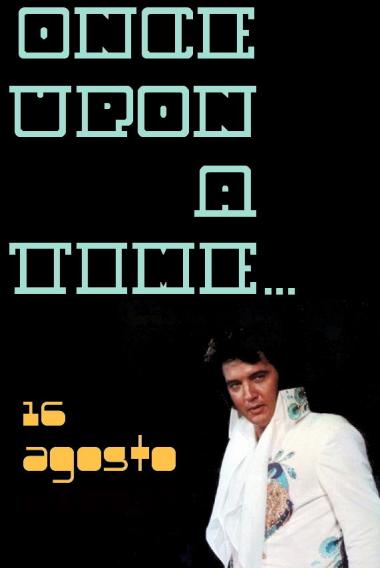
zcell rnd eYe/FS
zcell eYe/FS
This has been in the salon and ... Small changes in "zcell eYe/FS" make this font appear to look... as their older sister. FS is funny!
This has been in the salon and ... Small changes in "zcell eYe/FS" make this font appear to look... as their older sister. FS is funny! You can vote it, but is just only a diverttimento.
Whoa, that's pretty cool. Love the &. 9/10.
I don't know exactly what you changed, but i prefer this one much more than its sister now. Maybe the "T" is a bit too wide, though
I've changed the &, the %, the ©, the G, the Q (a little bit), the 6, the 9... unimportant things, just details. Agree with you, I will work a little the "T".